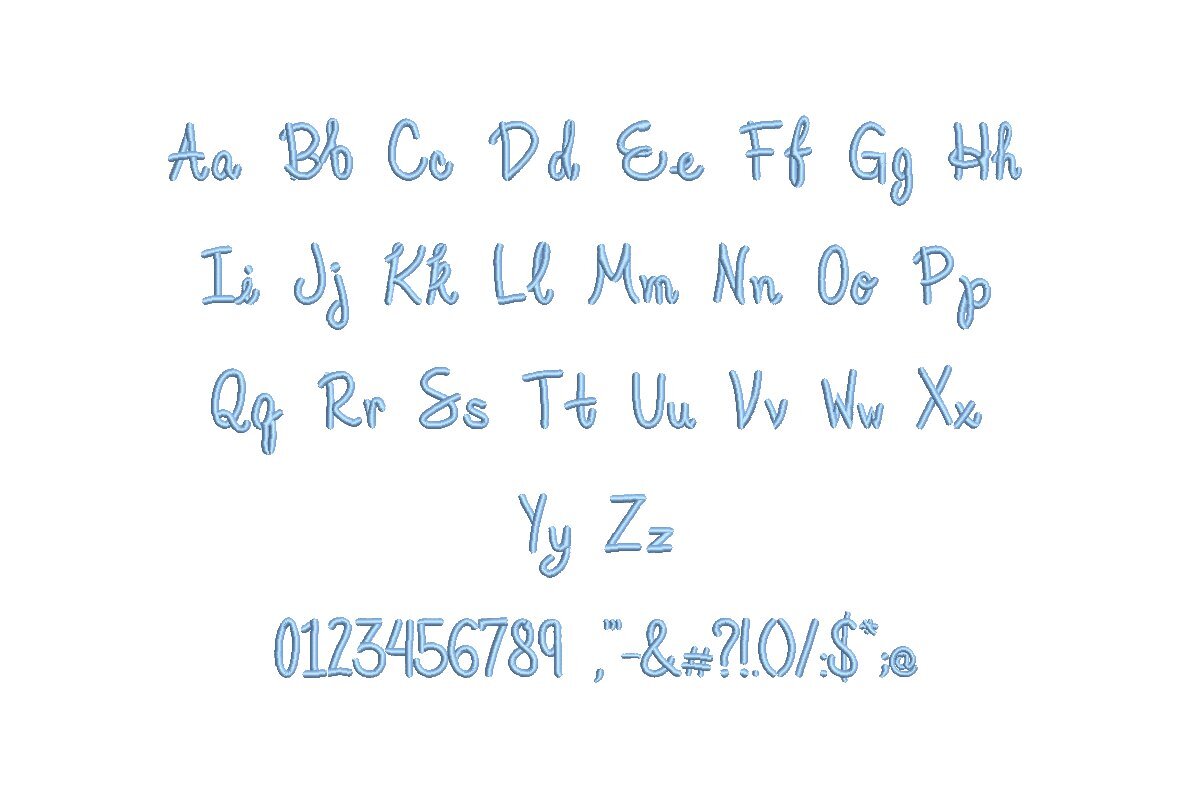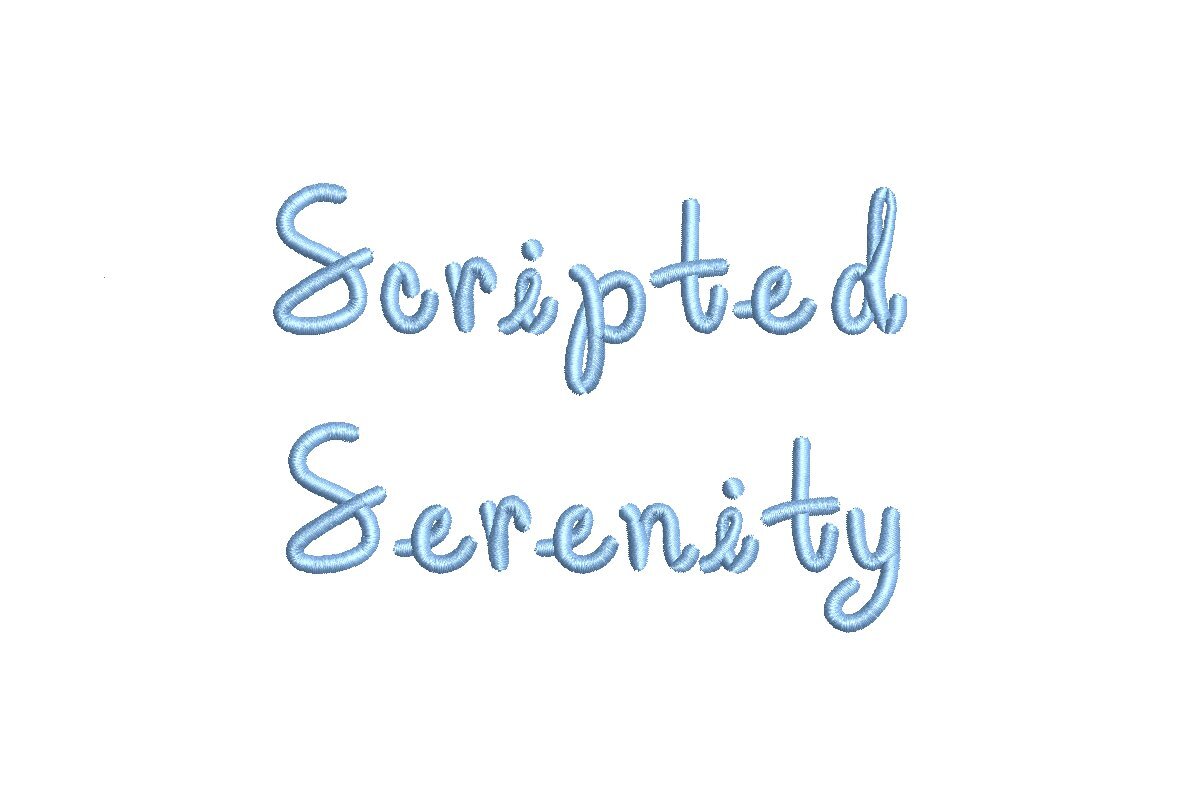
Introducing Scripted Serenity ESA Font - Elevate Your Embroidery to Tranquil Beauty!
Elevate your embroidery projects with the Scripted Serenity ESA Font, meticulously crafted for seamless compatibility with Wilcom Studio e4.5.6 and Hatch 3 versions and up. Whether you're a professional or a creative enthusiast, this font empowers you to infuse tranquil beauty into your designs effortlessly.
With a versatile range of customizable characters and impeccable stitch quality, your embroidery projects will exude serenity and elegance. Bid farewell to design limitations and embrace boundless creative possibilities with the Scripted Serenity ESA Font. It's time to transform your embroidery into a masterpiece of tranquil beauty. Elevate your artistry today!